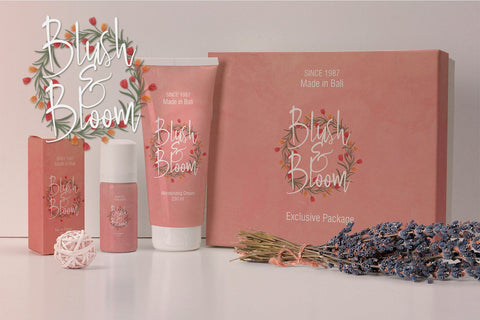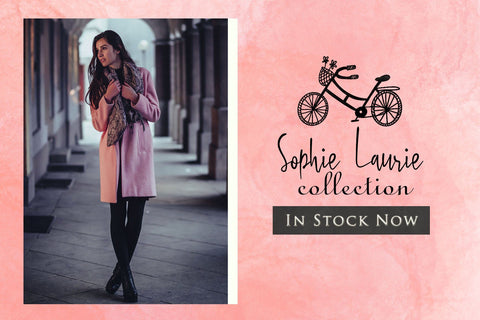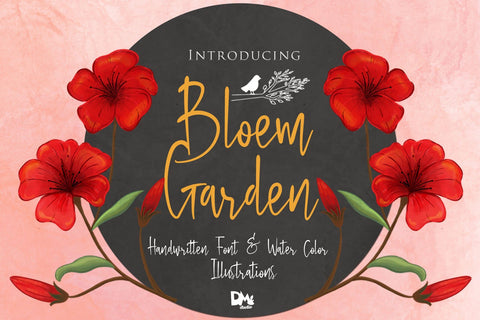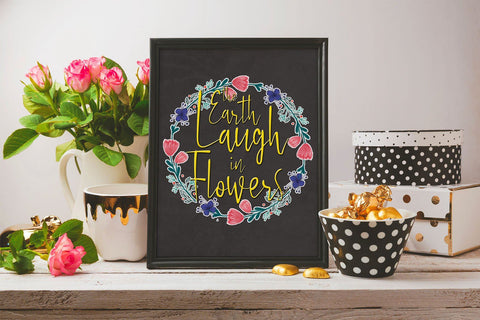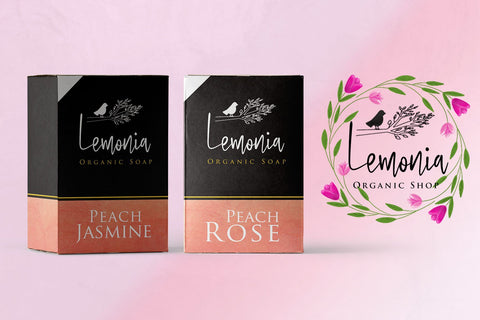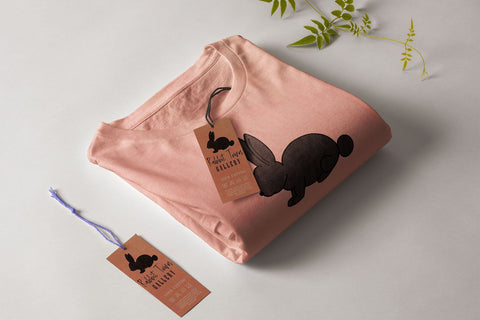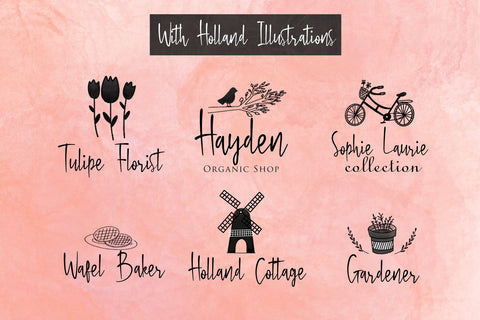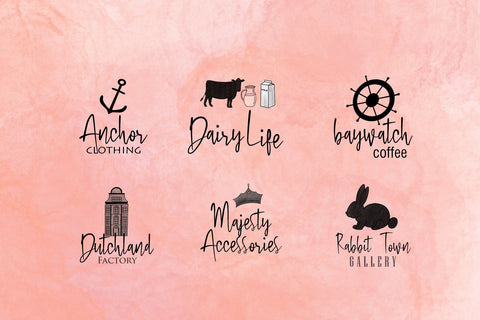
Bloem Garden - Handwritten Font with Watercolour Package
Bloem Garden, is a casual handwritten font. It's a beautiful and versatile font with Holland theme that will looks great for
any modern style projects, logos, branding, name cards, digital signatures, blog headers, magazine, fashion tags, greeting cards, and much more!
Bloem Garden comes with special watercolors bonuses that will give your design more unique and gorgeous.
- Standard Characters, including Uppercases and lowercases
- Numerals, punctuations
- Extra Holland Theme Handdrawn Illustrations and flowers ornaments